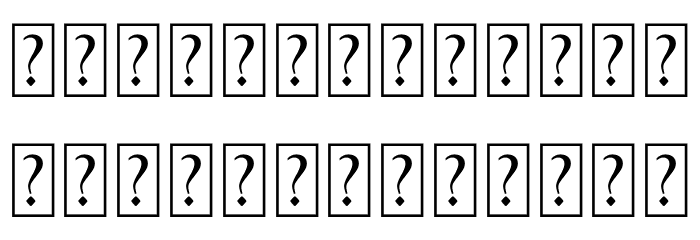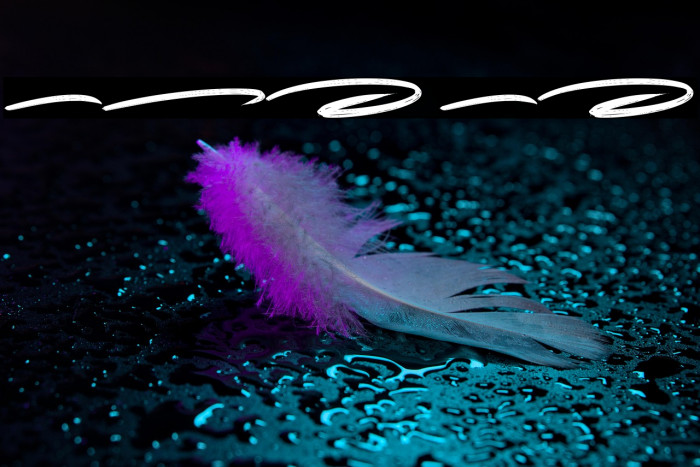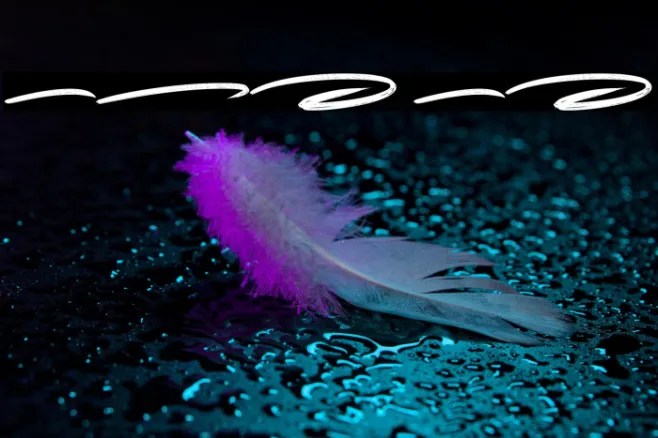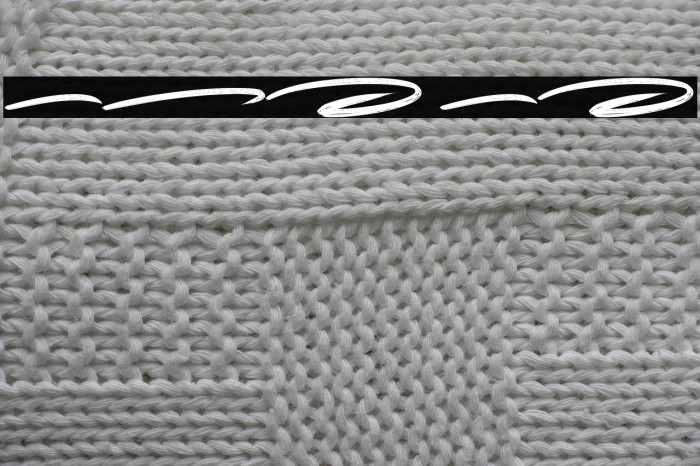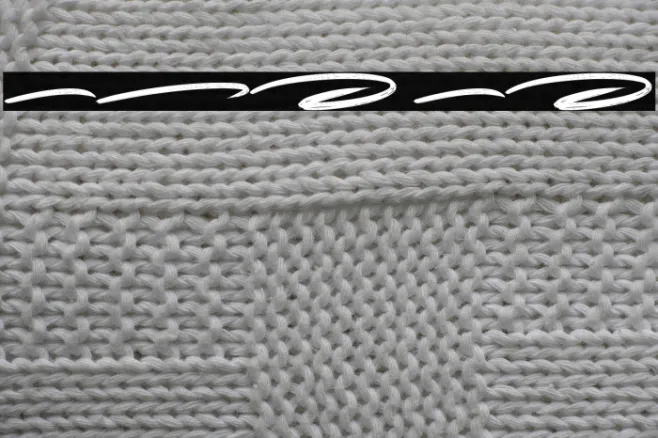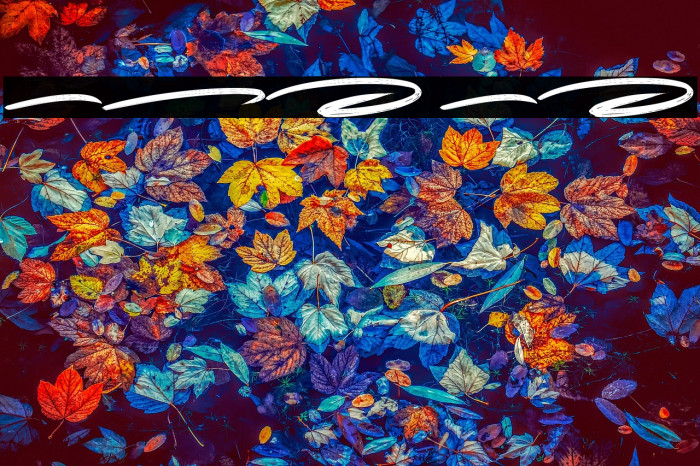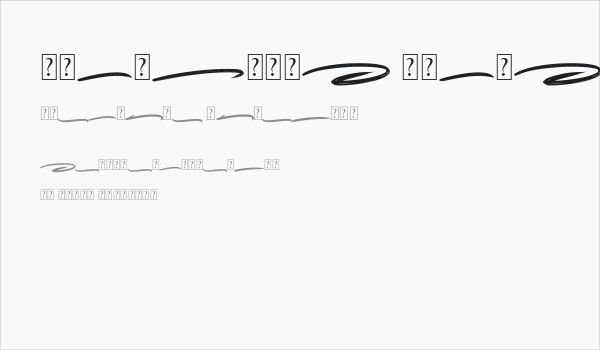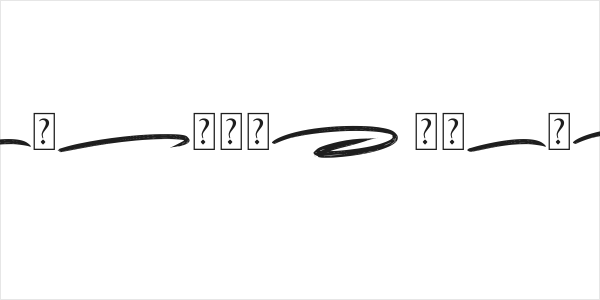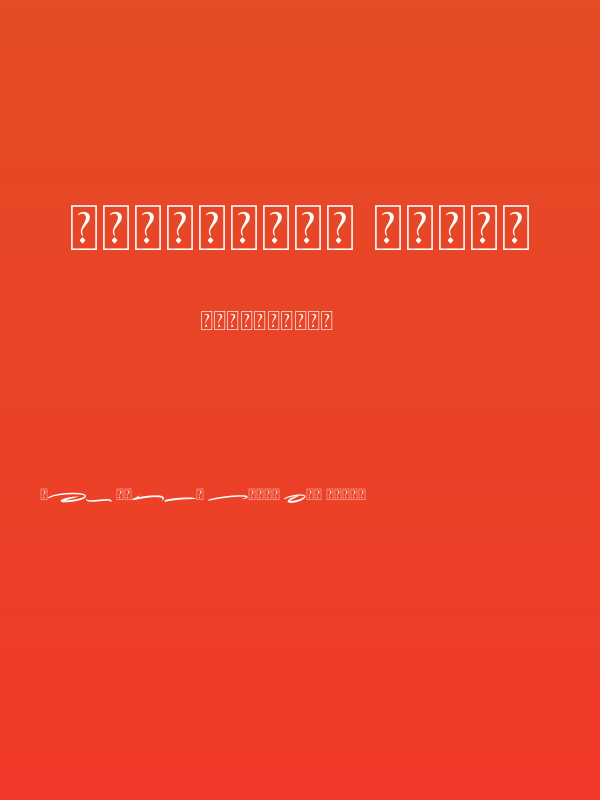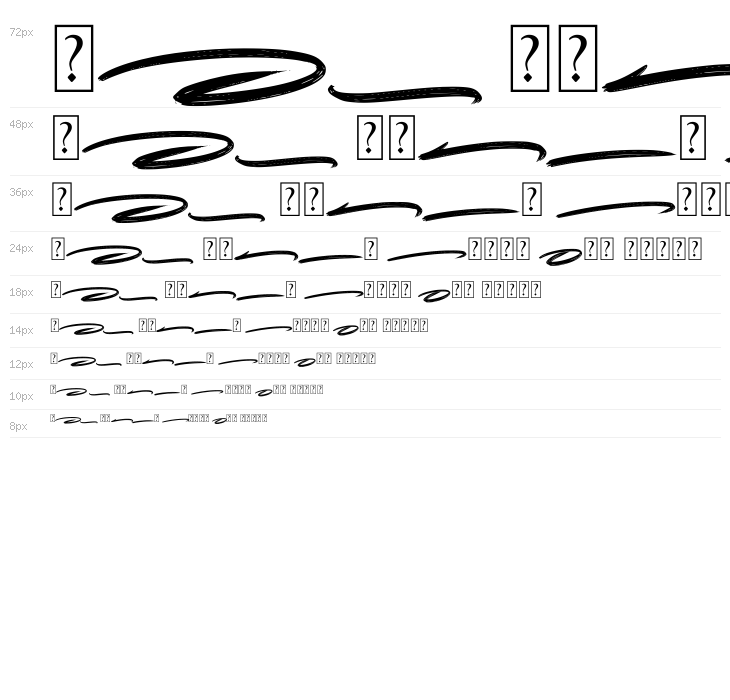
Playbrush Swash Font
Playbrush Swash Description
This font features a playful and artistic brush style, characterized by its fluid and dynamic strokes. The letters exhibit a hand-drawn quality, with varying thickness that adds a sense of movement and energy. The swashes and flourishes enhance its decorative appeal, making it suitable for creative and expressive designs. The overall appearance is both whimsical and elegant, capturing attention with its unique flair.
| Proposed Projects | Ideal for greeting cards, invitations, artistic posters, and branding projects that require a personal touch. |